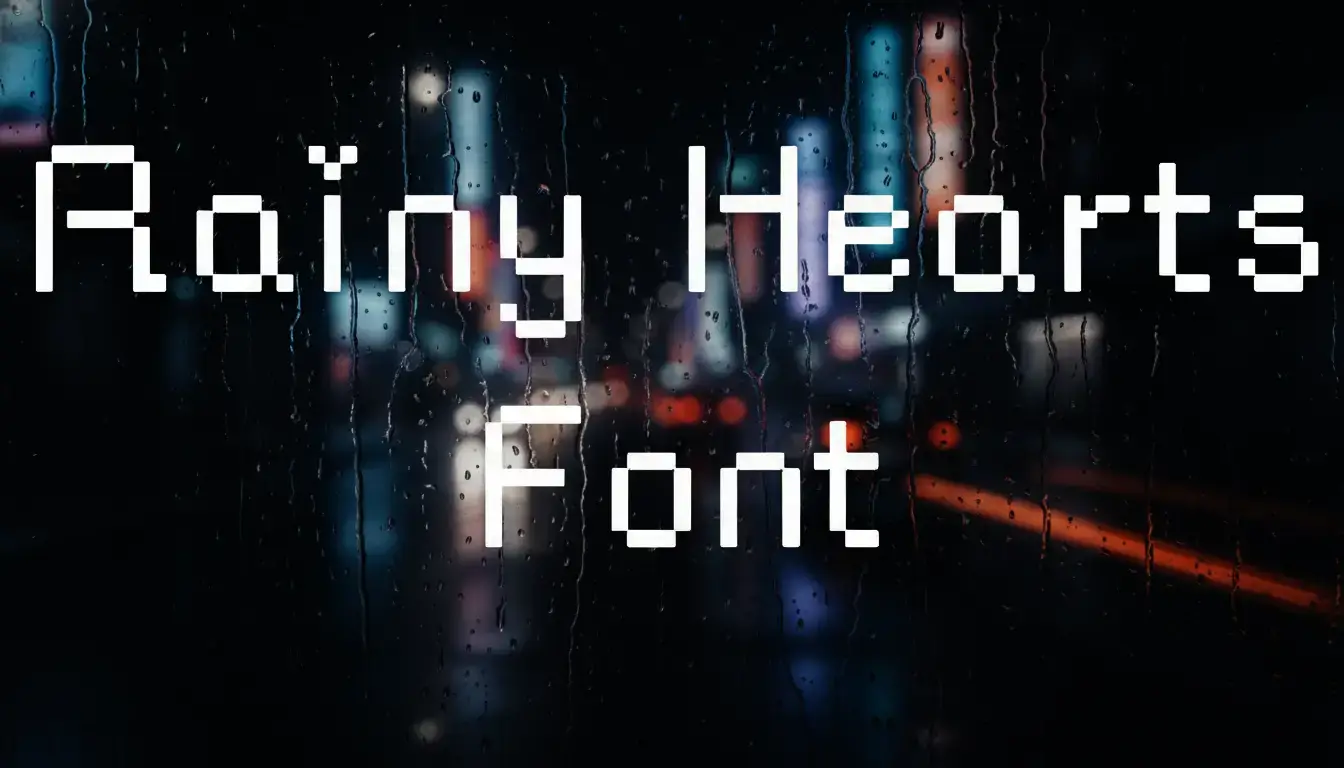
Rainy Hearts Font
Rainy Hearts is a bitmap pixel font. Every letter is built from square pixels, just like text in old video games and early computers. It's a free download, and you can try it with your own text in the preview above first.
- Category: Bitmap pixel font
- Glyphs: 320
What You Can Type With Rainy Hearts
Rainy Hearts covers the full alphabet in upper and lowercase, plus all ten numbers, so you can set names, dates and prices without switching fonts. Common punctuation such as &, !, ? and @ is included as well. It also has the accented letters you need for Spanish, French, German, Portuguese and Italian.
Where Rainy Hearts Works Best
Designers usually reach for fonts like Rainy Hearts when they're making retro game titles, pixel art and 8-bit posters. Pixel fonts look sharpest at sizes that match their grid. If the edges look blurry, nudge the size up or down until they snap into place.
Does Rainy Hearts support accented letters?
Yes. Rainy Hearts includes the accented letters needed for Spanish, French, German, Portuguese and Italian, so it works for more than just English.
What fonts pair well with Rainy Hearts?
For longer text, a simple monospace font keeps the retro mood without tiring your readers.